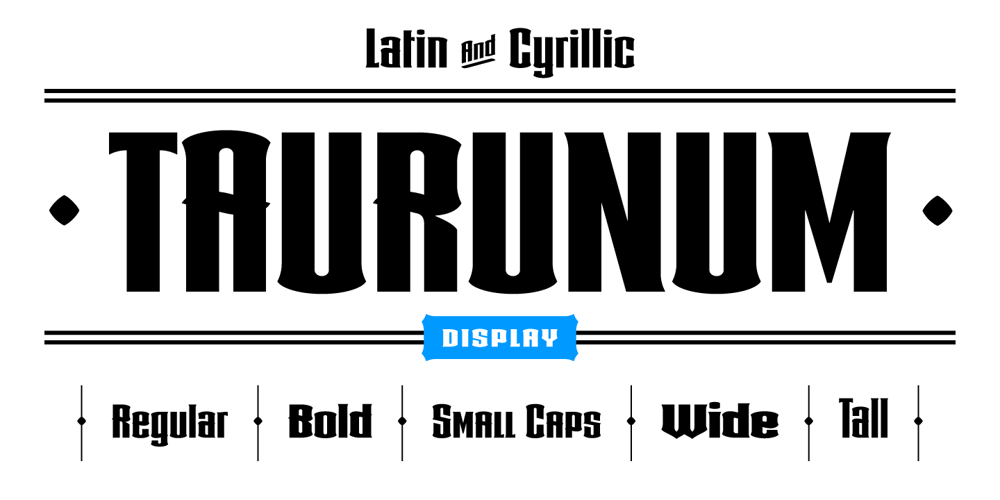
Taurunum Font Family was designed by Zoran Kostic, Nikola Kostić and published by Kostic. Taurunum contains 5 styles and family package options. The initial idea for this font came when a friend of mine asked me to create a logo for a sports team that he was forming. Since it was a martial arts competitive sport, bold and striking lettering was needed to reflect that. When the logo was finished, I was really pleased whith the letters so I decided to create the entire font. Taurunum is made with intention to be used for display design (logos, posters, etc.), and combining the weights should give best results.